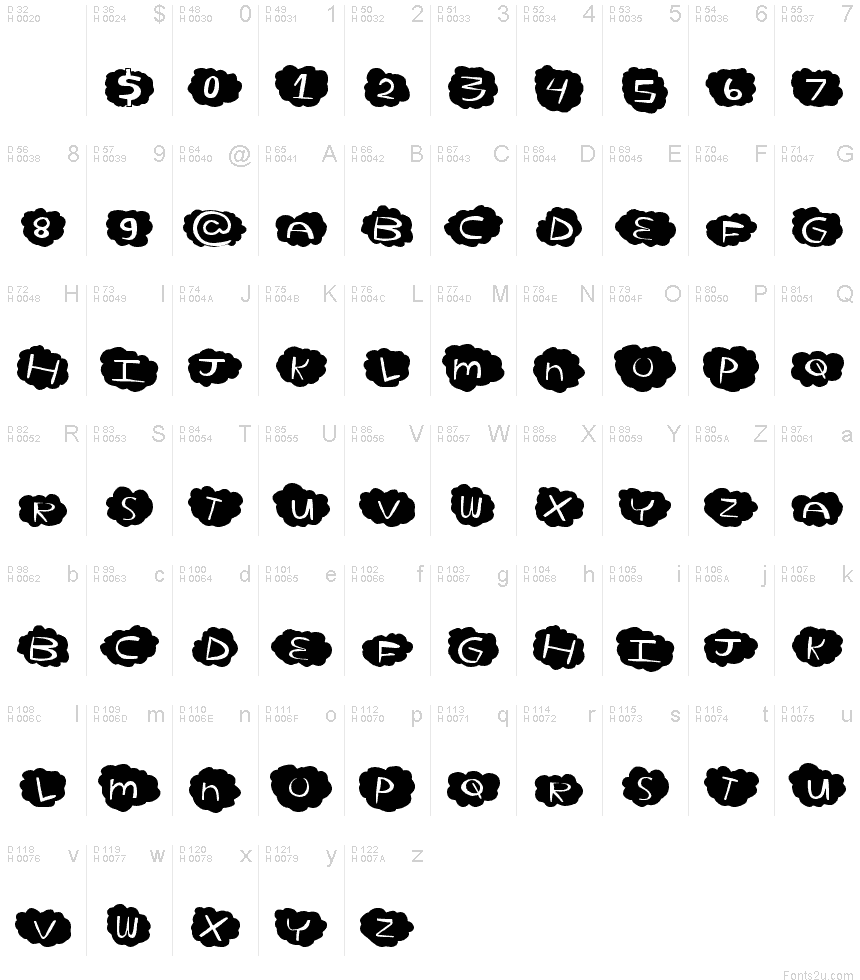
Cloud Home by Xerographer Fonts is a free cartoon display font built around puffy, cloud-shaped letter panels. The soft, lumpy outer contours link into a loose band, yet every character keeps its own uneven pocket. Inside, the letters are slim, irregular, and cheerfully mismatched in height and angle.
Weather, daydreaming, and playful skies are obvious themes for this lettering. It suits children's book covers, classroom posters, and party invitations with skyward themes. On nursery merchandise, the billowing border becomes part of the cloud illustration.
Cloud Home, created by Xerographer Fonts in 2012, is a free display font.